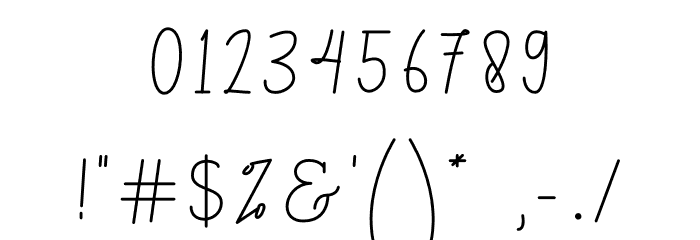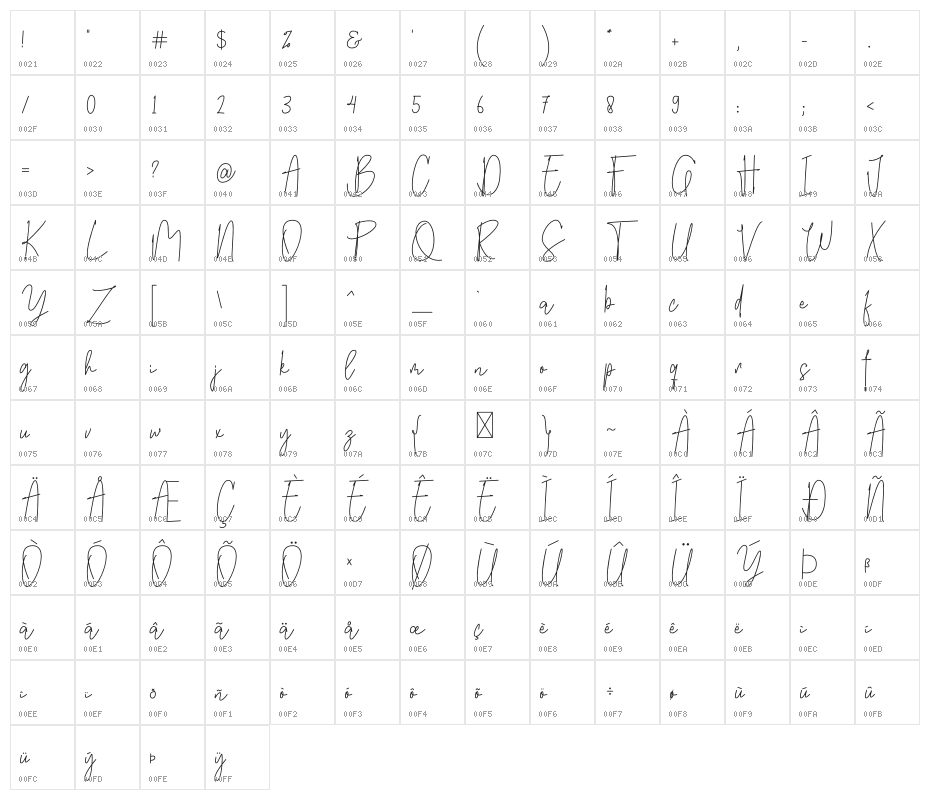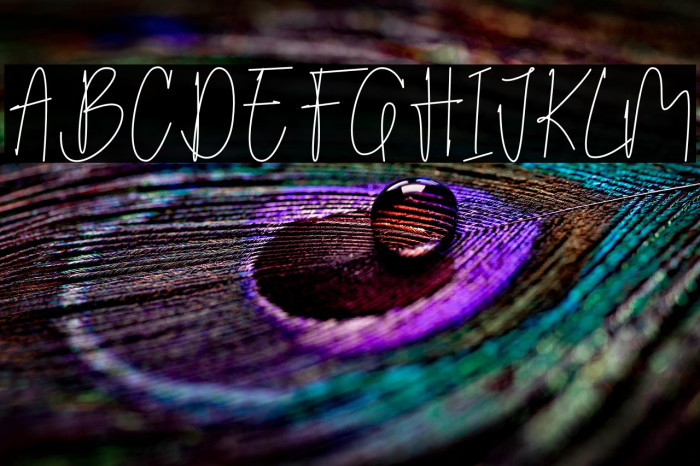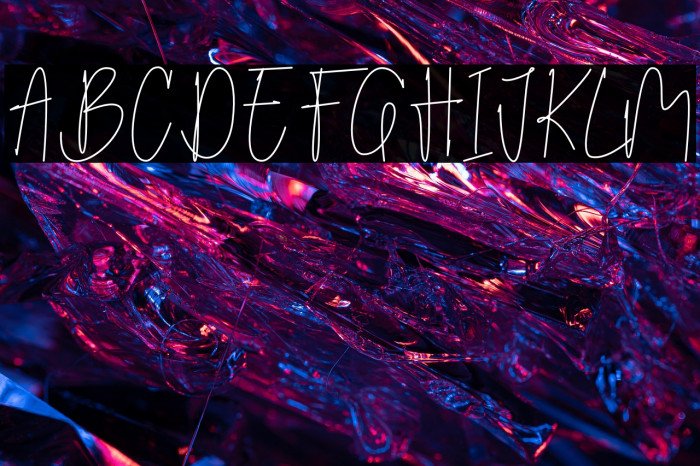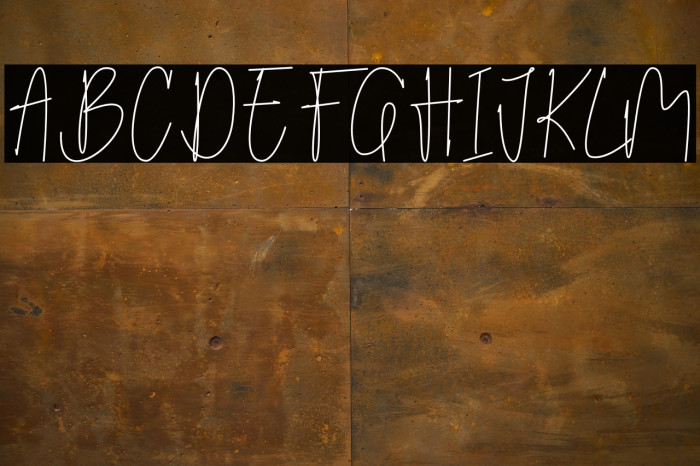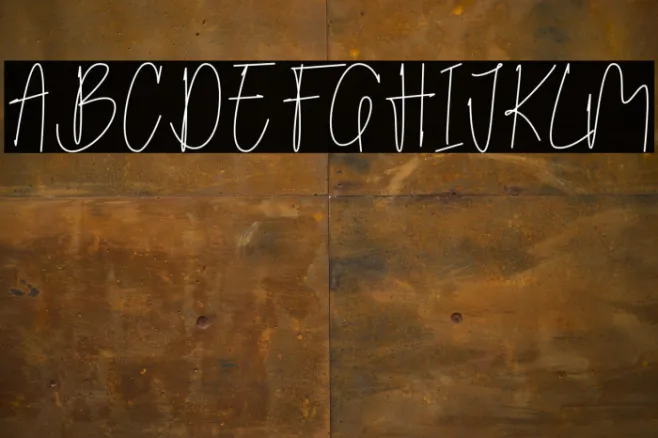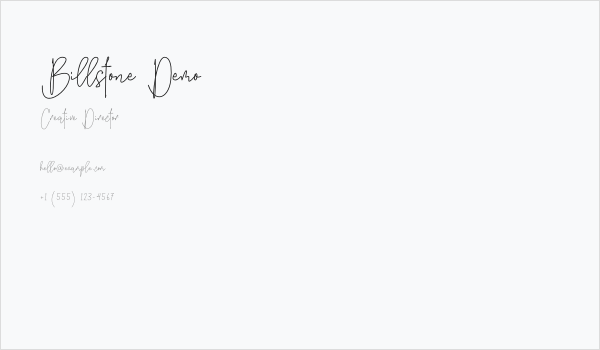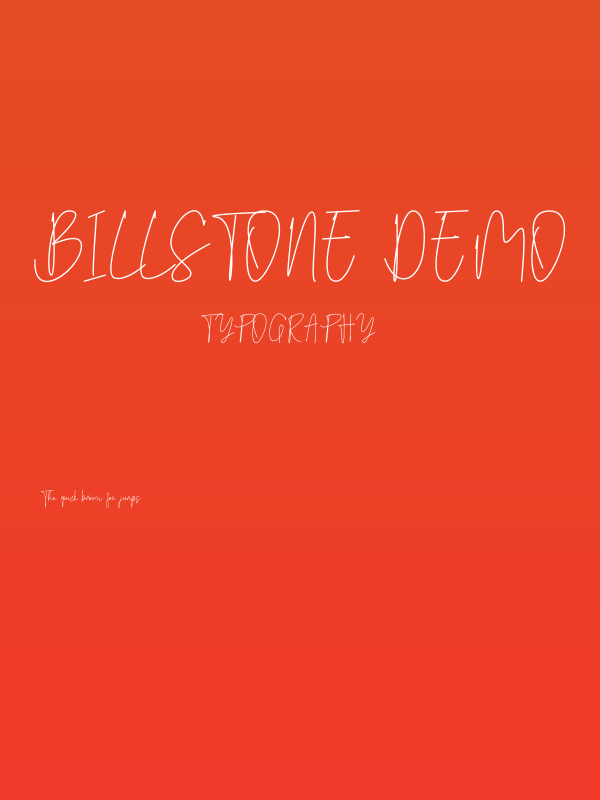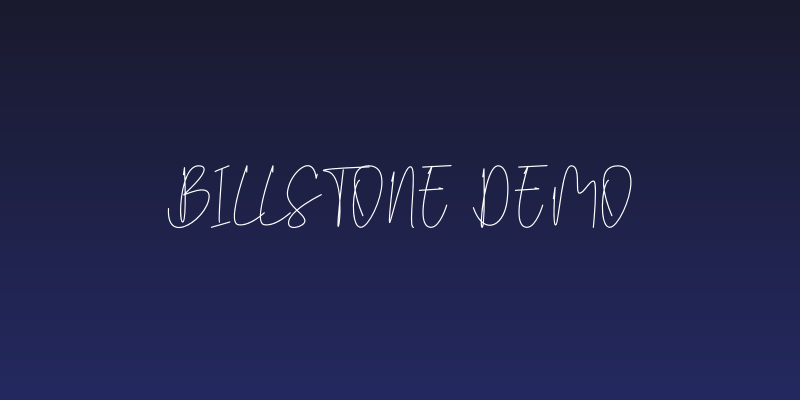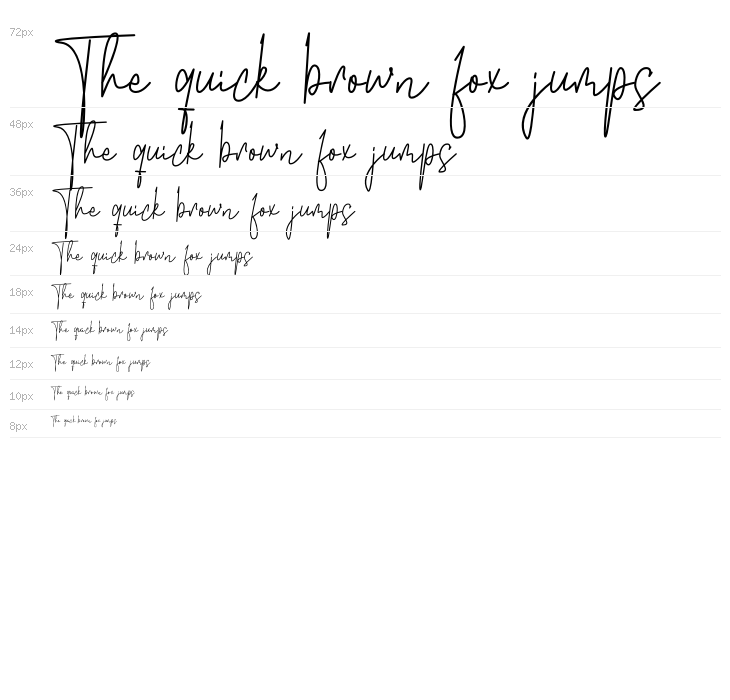
Billstone Demo Font
Billstone Demo Description
This font features a unique handwritten style with a playful and artistic flair. The uppercase letters are tall and slender, with a slightly irregular baseline that adds to its casual charm. The lowercase letters are more fluid and connected, resembling a cursive handwriting style. Numbers are consistent with the overall aesthetic, maintaining the same playful and informal look. Special characters are creatively designed, adding a touch of whimsy to the font. The strokes are thin and consistent, giving it a light and airy feel. This font is perfect for projects that require a personal touch, such as invitations, greeting cards, or creative branding.
| Proposed Projects | Ideal for invitations, greeting cards, personal branding, and creative projects. |